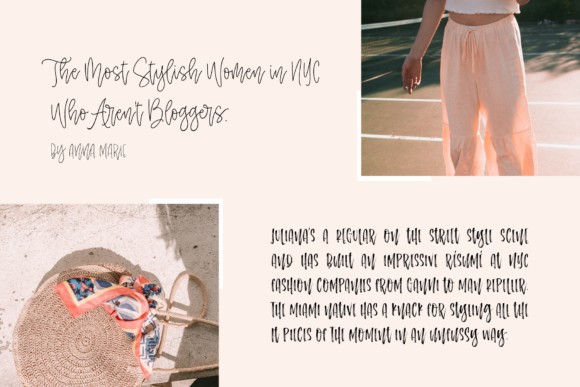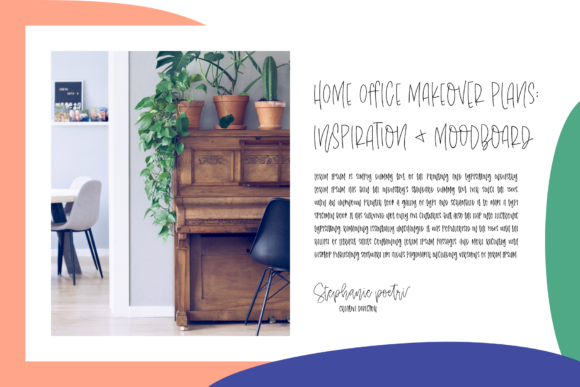
The Notebook Font
db-ku.com - Script & Handwritten -- The Notebook is a friendly duo styled script font. Add it to your most creative ideas and notice how it makes them come alive!